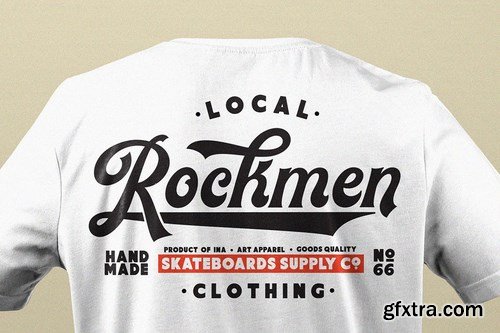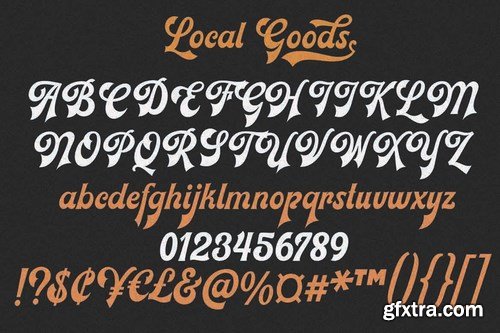
Local Goods Font is a font combinations with a three different style, these font can inlude a modern vintage look, elegant look and clean.
Local Good fonts coming with open type features like stylistic set 01-05, stylistic alternates, swash and ligatures.
It is perfect for product logo, signage, branding projects, headlines, posters, packaging, clothing brand logos, Vintage design and much more.